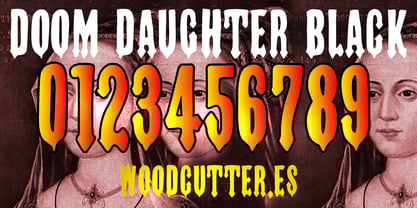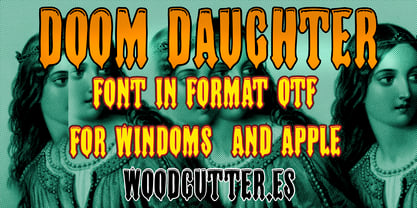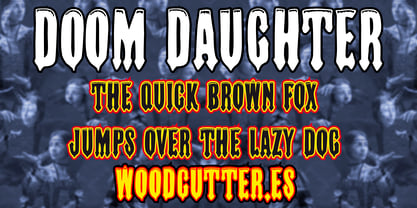
Doom Daughter
by Woodcutter
The Doom Daughter Font Family was designed by Jordi Manero and published by Woodcutter. Doom Daughter contains 2 styles and family package options. More about this family
Doom Daughter is an uppercase font that blends decorative gothic style with a sharp, modern attitude. Its letters are bold, with pointed bases that evoke a dark, commanding presence. The typeface radiates elegance with a visual drama, making it ideal for titles, covers, or graphic projects that demand a powerful and mystical look.
The font family includes two versions: Doom Daughter, featuring fine decorative elements and upper shading on each letter for depth and texture; and Doom Daughter Black, a fully solid version with no shadows, delivering maximum impact and weight. Together, they offer stylistic versatility while maintaining a cohesive gothic aesthetic. Perfect for metal themes, horror vibes, or editorial design with strong personality.